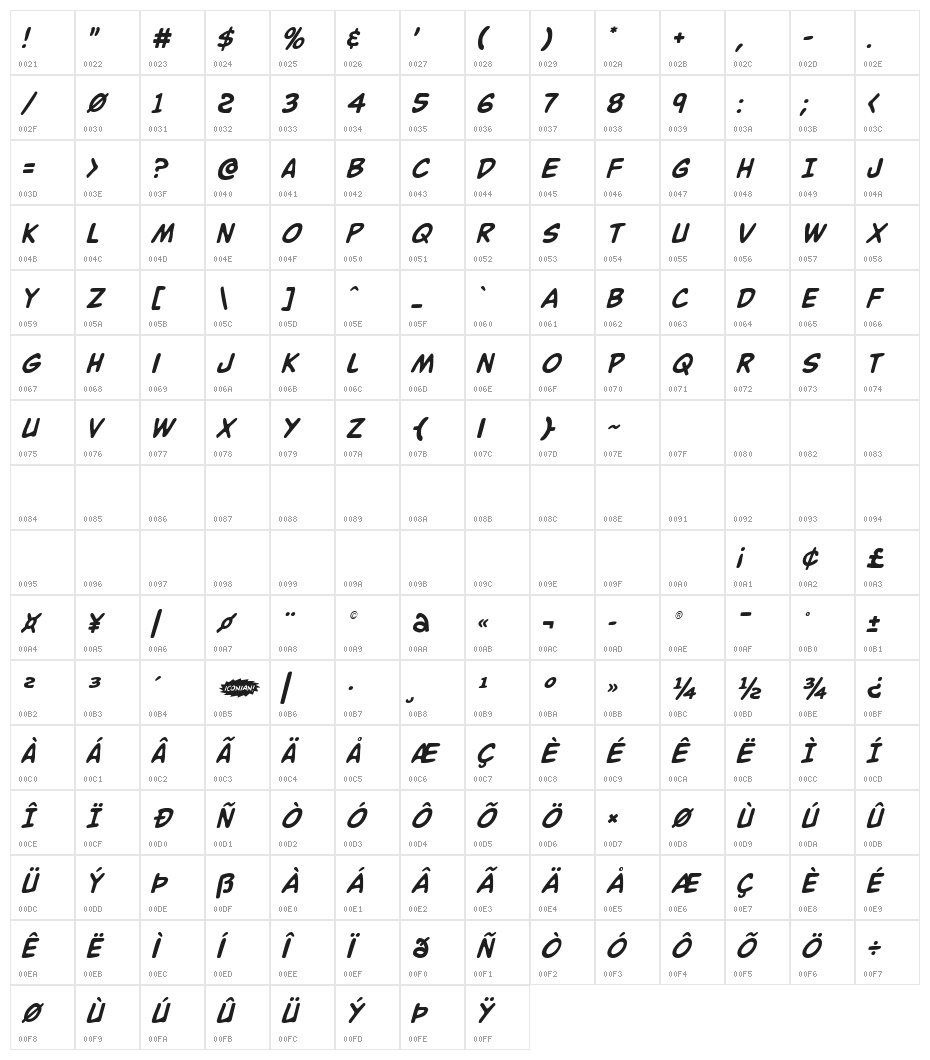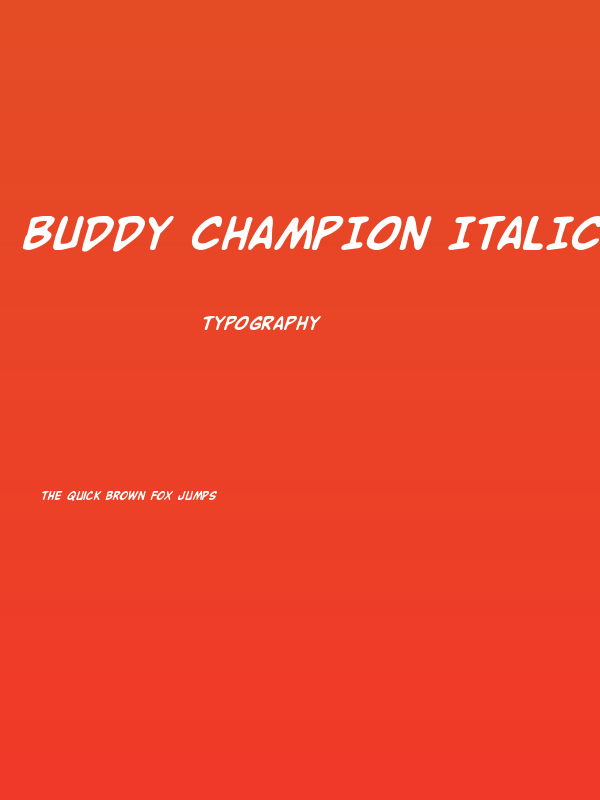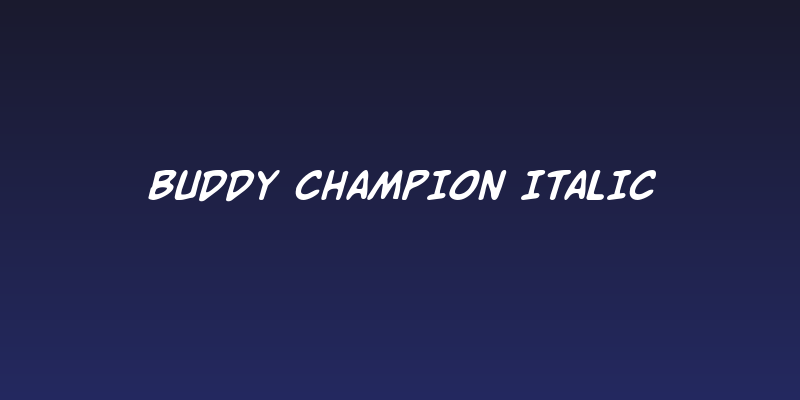
Buddy Champion Italic Font
Buddy Champion Italic Description
This font features a bold, italicized style with a playful and dynamic appearance. The characters are slightly slanted, giving a sense of motion and energy. The strokes are thick and consistent, providing a strong visual impact. The rounded edges and smooth curves contribute to a friendly and approachable look. The font maintains a uniform weight throughout, ensuring readability while adding a touch of personality. It is well-suited for designs that require a lively and engaging typeface.
| Proposed Projects | Ideal for branding, posters, and playful graphic designs. |